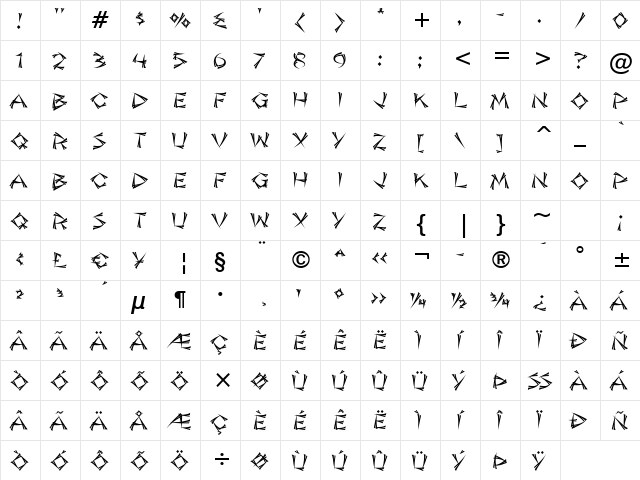
Jade Monkey BTN Split Regular
Design Context for Jade Monkey BTN Split Typeface
Jade Monkey BTN Split is a composed and adaptable typeface that performs quietly and consistently across a wide range of design contexts.